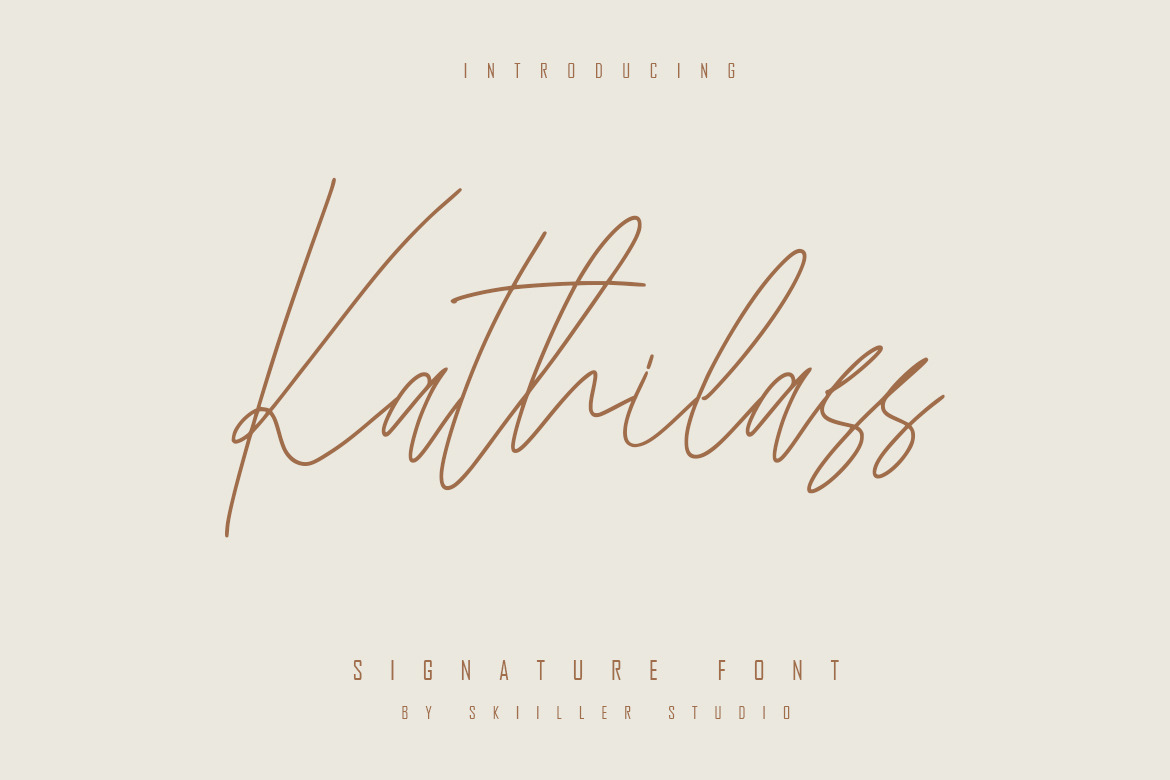
Kathilass - Signature Font
Kathilass is a handwritten signature script with a natural flow and beautiful style. Kathilass is perfect for design projects, prewedding, branding.